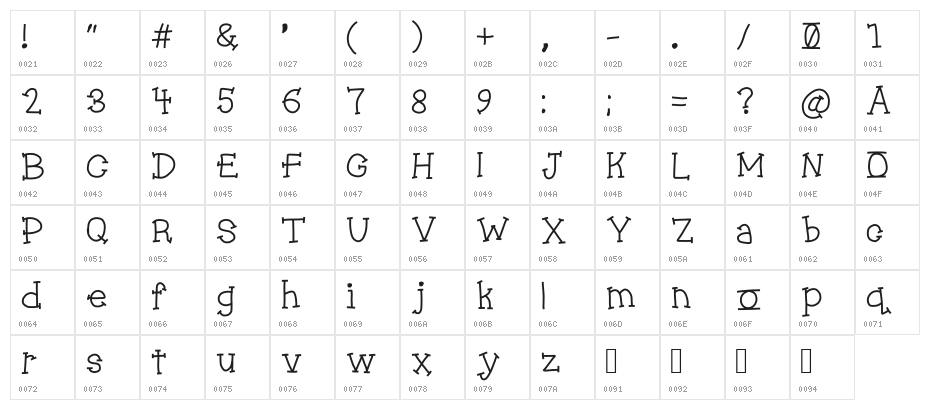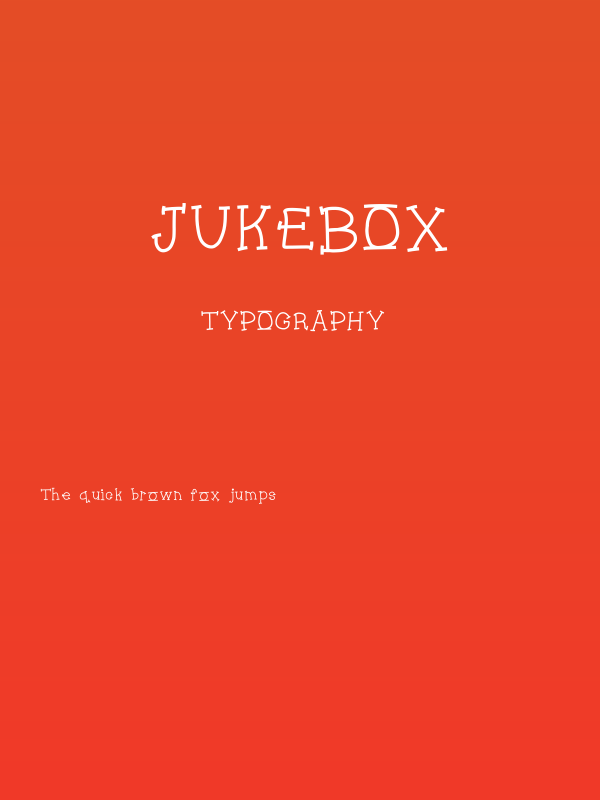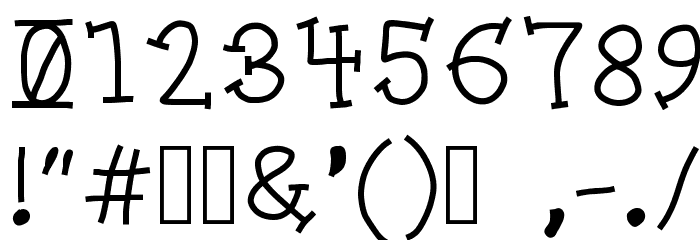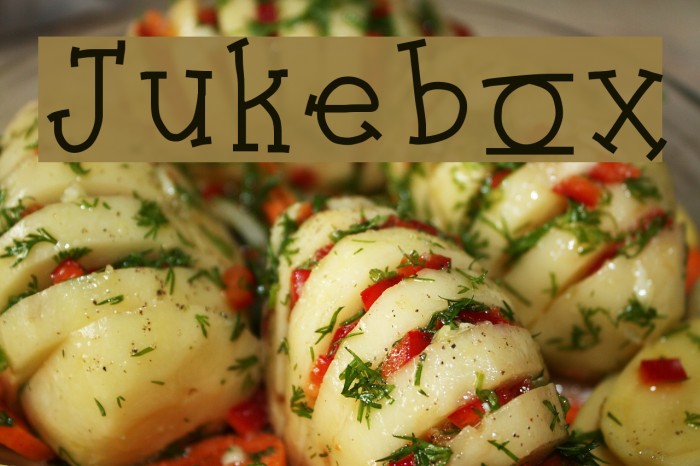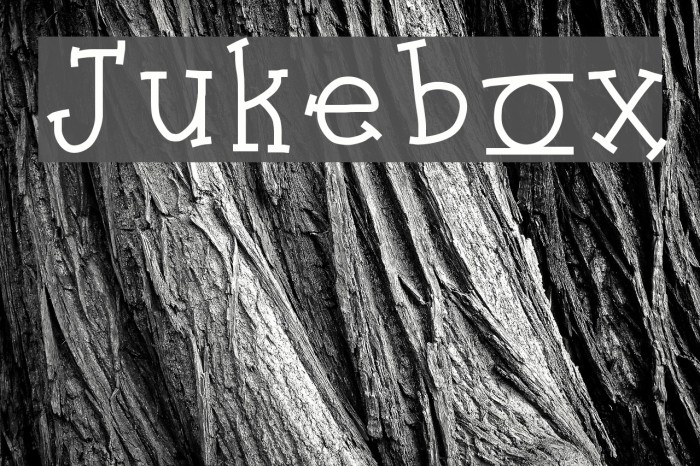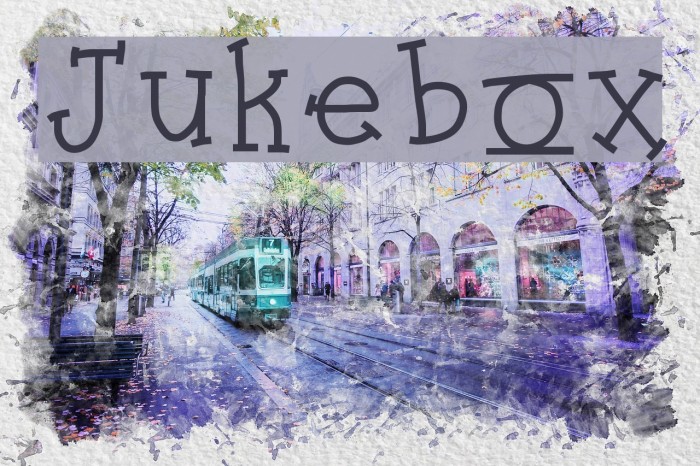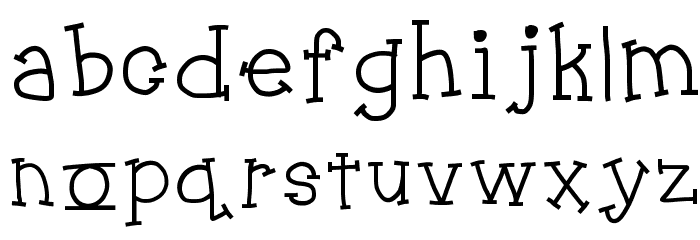
Jukebox Font
Jukebox Description
This playful and whimsical font features a unique, hand-drawn style with irregular strokes and quirky details. The characters have a bouncy, uneven baseline, giving them a lively and dynamic appearance. The uppercase letters are bold and slightly exaggerated, while the lowercase letters maintain a consistent, playful look. Numbers and special characters follow the same whimsical design, making this font ideal for creative projects. The overall style is reminiscent of a fun, casual handwriting, perfect for adding a touch of personality to any design.